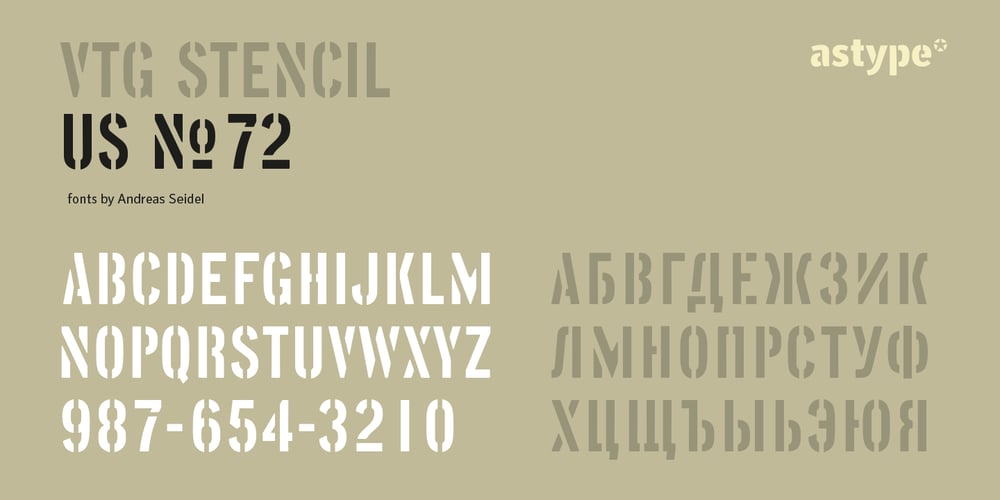
Vtg Stencil US No 72 Font Family was designed by Andreas Seidel and published by astype. Vtg Stencil US No 72 contains 4 styles and family package options. The Vtg Stencil series of fonts from astype are based on real world stencils. All styles offering an extended Latin character set. » pdf specimen «